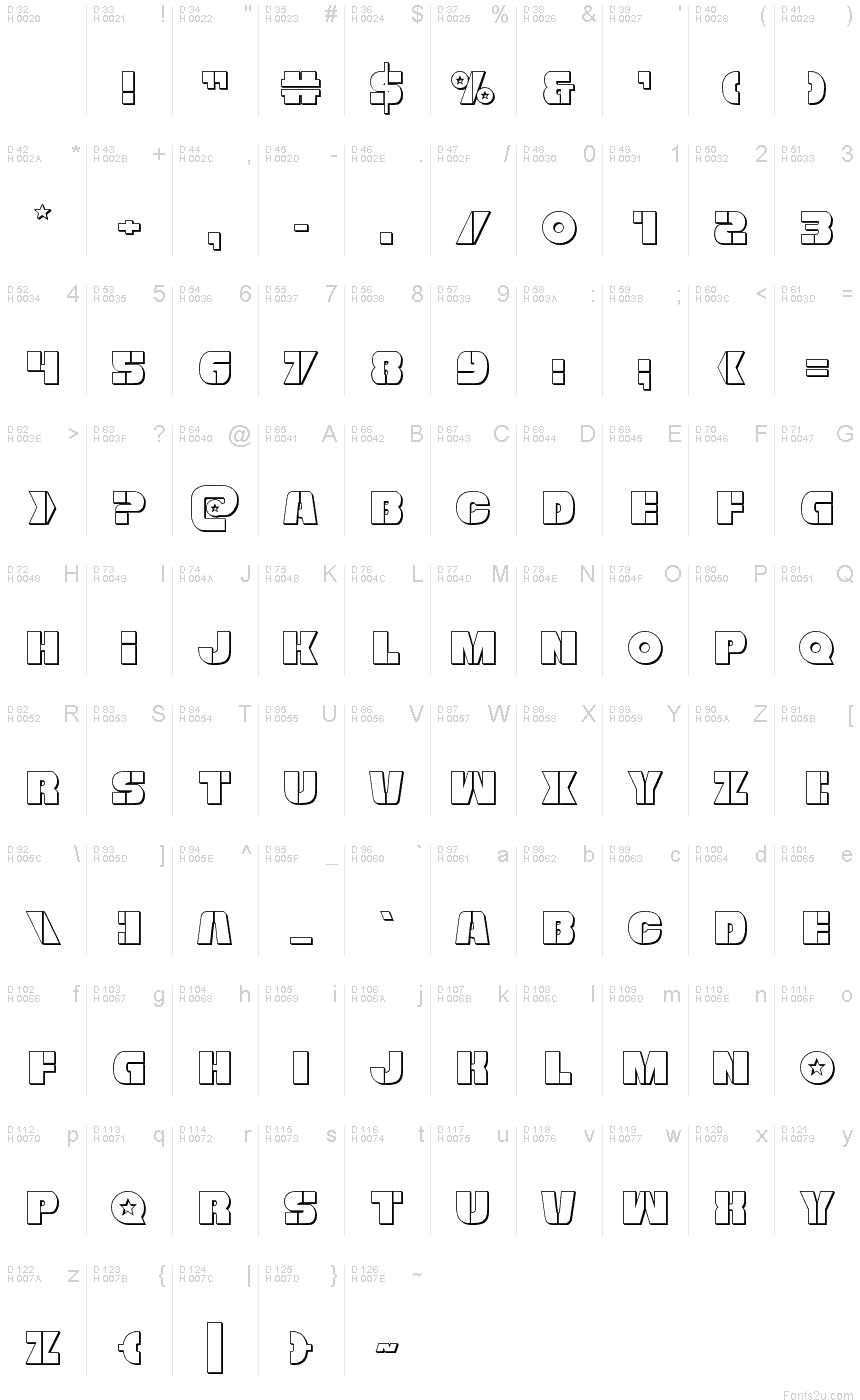
Freedom Fighter 3D Regular
Freedom Fighter is a military-inspired stencil font, with a futuristic look and feel. The font versions each come with a complete Latin character set (including the Euro) and several alternate letter styles between the upper and lower cases for mixing and matching.